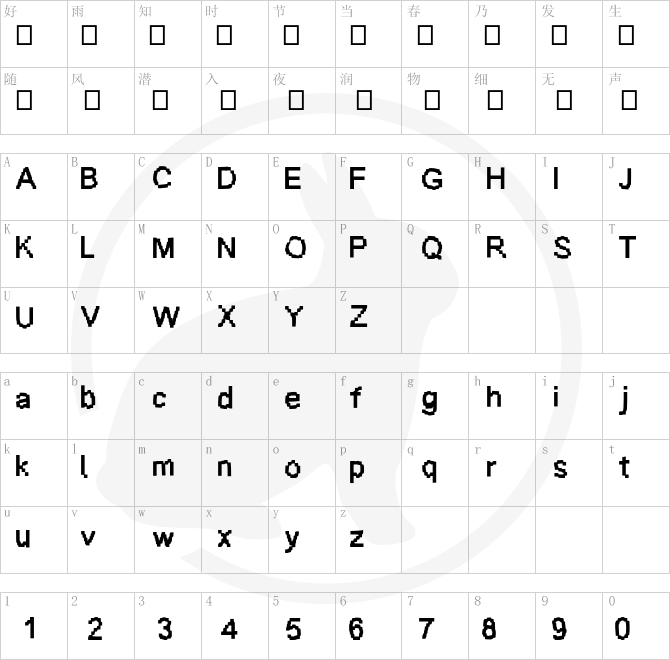
Baardfaant-Regular.otf is a very beautiful artistic font, Baardfaant-Regular.otf is widely used in the design and printing of various books and pictures,Baardfaant-Regular.otf has a strong visual impact,Baardfaant-Regular.otf is a commonly used font in newspapers, magazines and books, and is used in posters, e-commerce Poster design, store design, logo design, font design and other fields.Baardfaant-Regular.